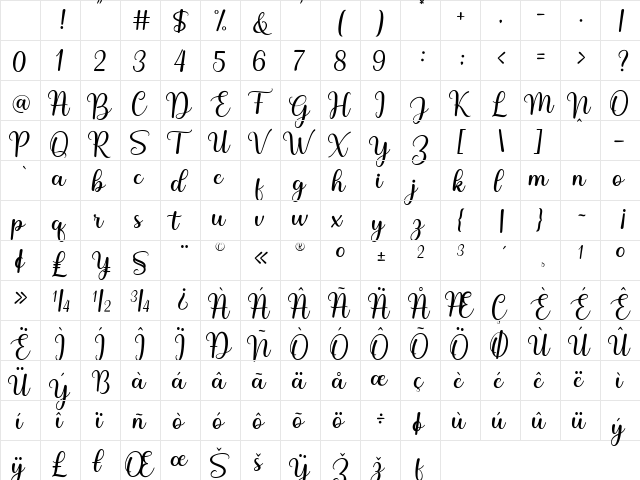
Complete Lovely Nathalie Script Regular glyph index. Displaying only characters natively supported by Lovely Nathalie Script Regular font.
Lovely Nathalie Script flows with the natural rhythm of handwritten lettering, making it ideal for designs that call for warmth and personal expression.
Font Pairing: Combine Lovely Nathalie Script with a simple geometric sans for maximum contrast - the tension between flowing curves and clean structure is a classic typographic pairing.
Pro Tip: Use Lovely Nathalie Script for short runs of text - names, titles, or taglines. Extended body copy in script faces tires the eye quickly.